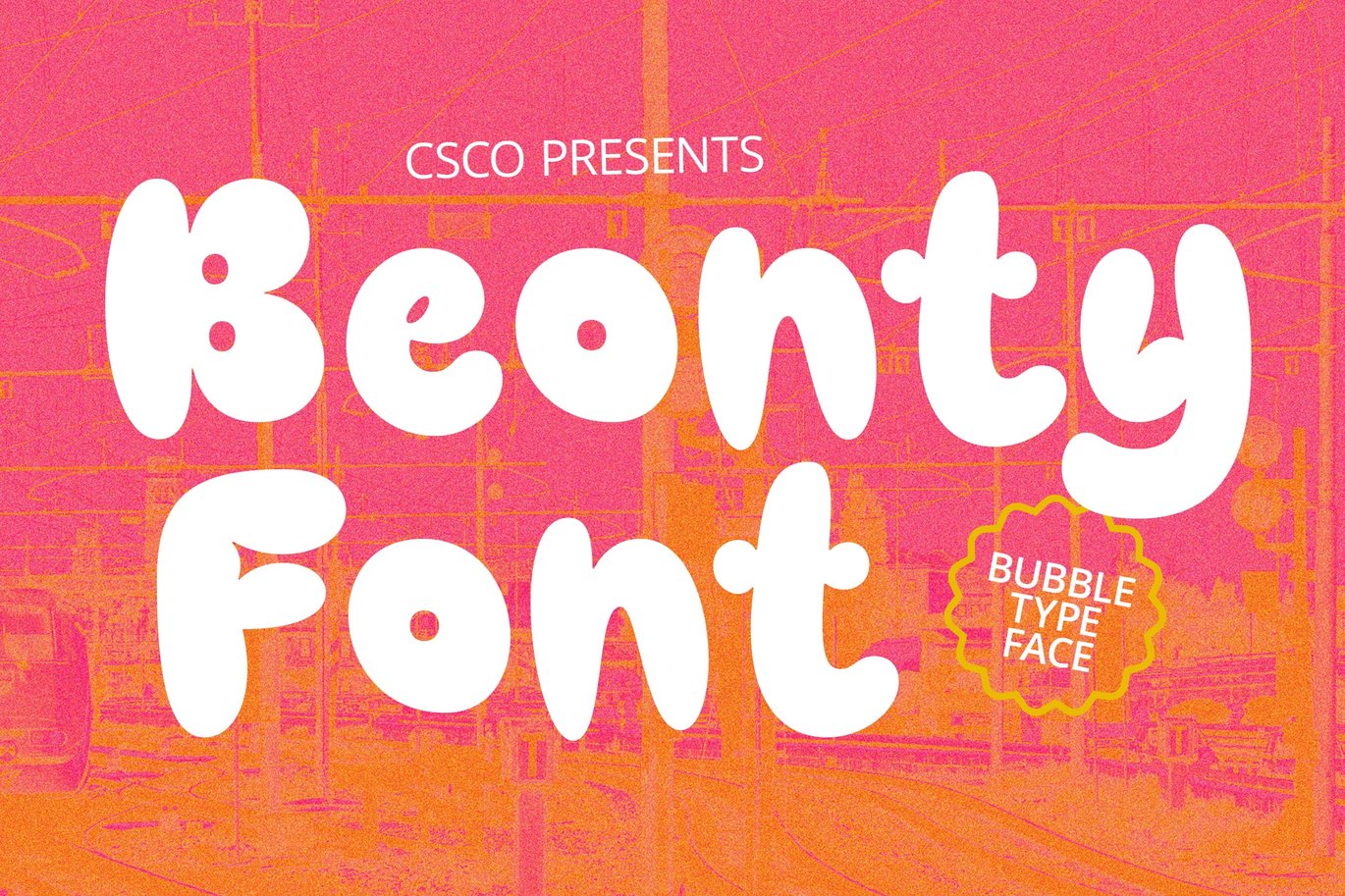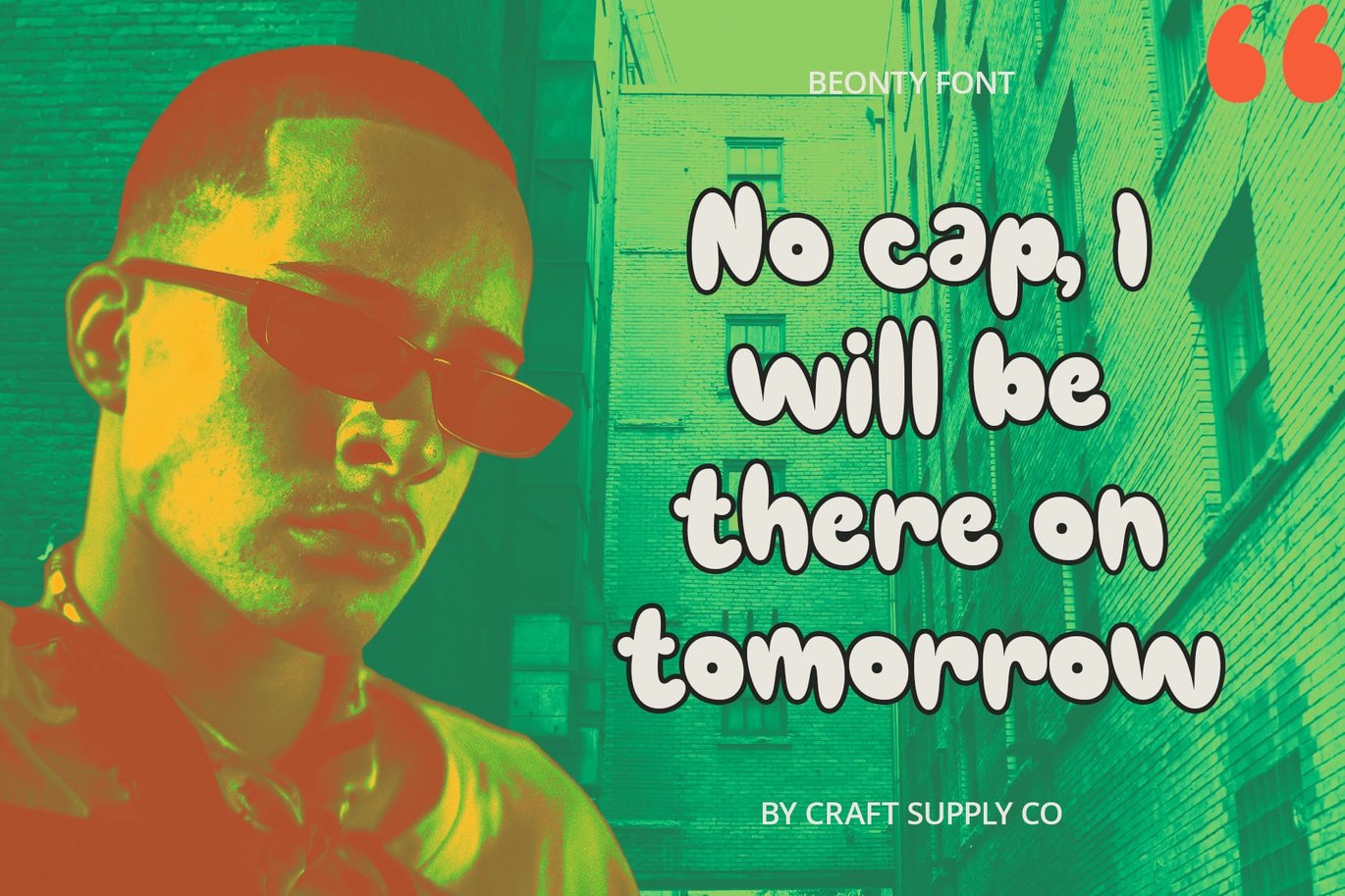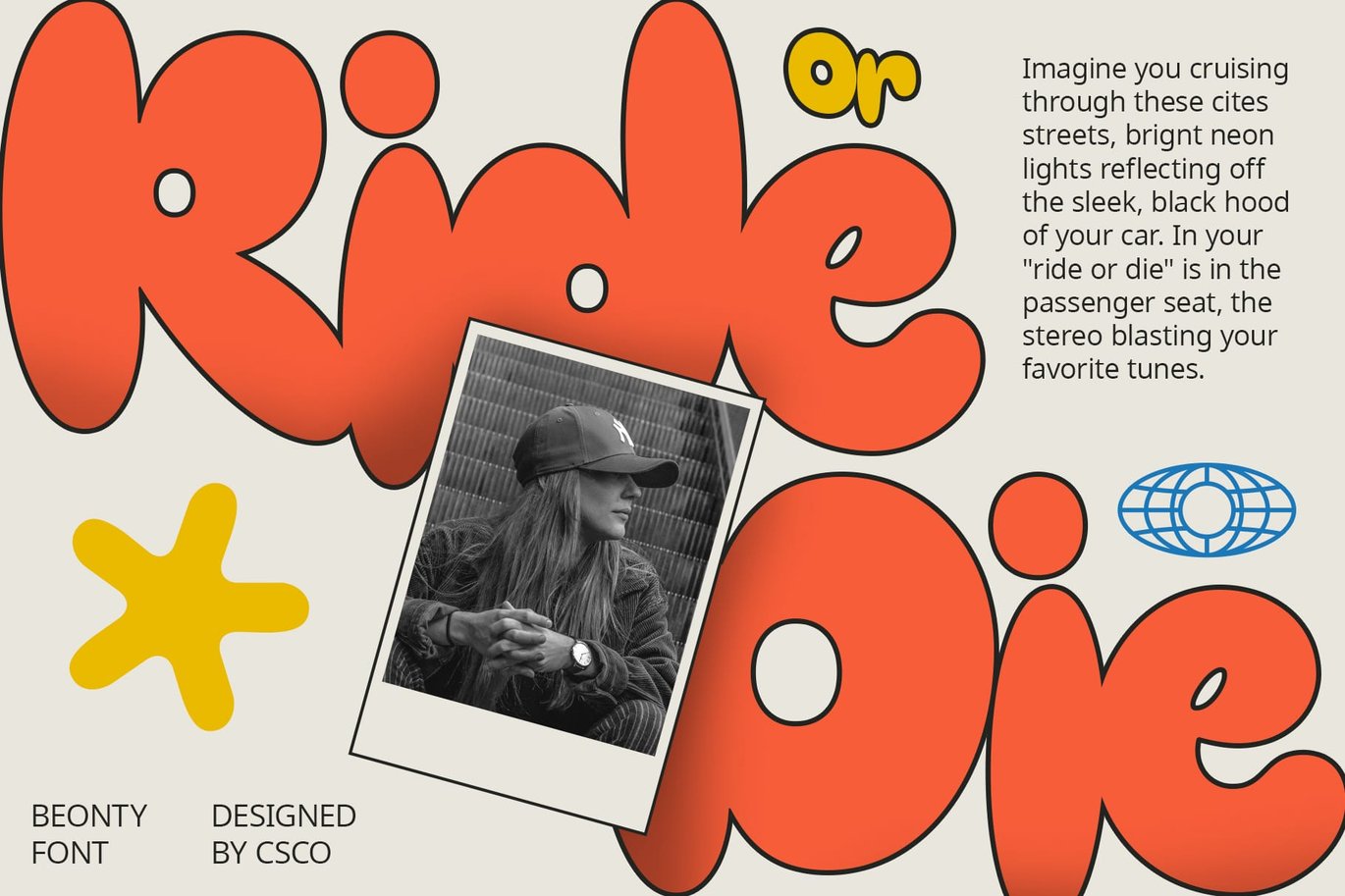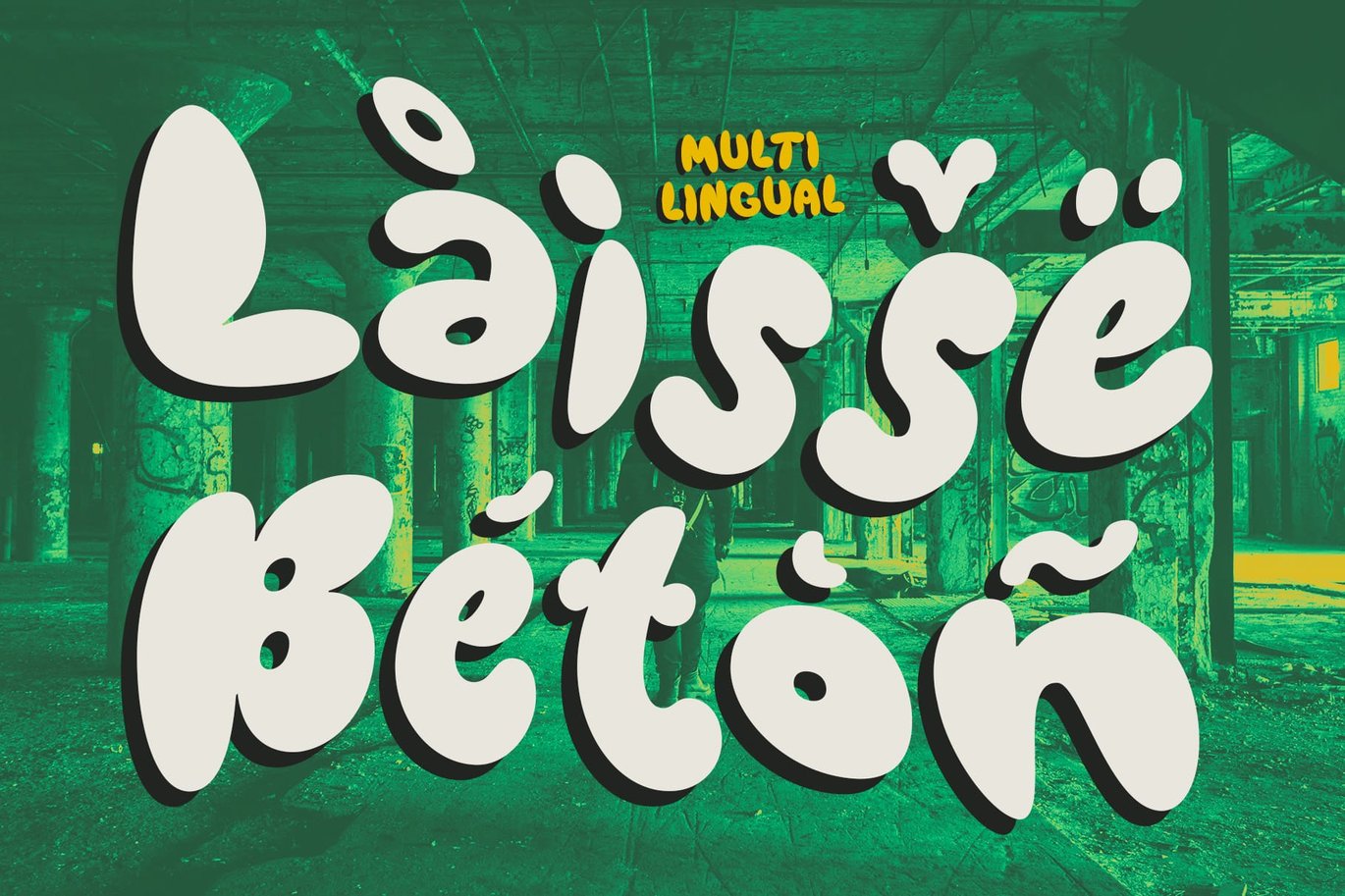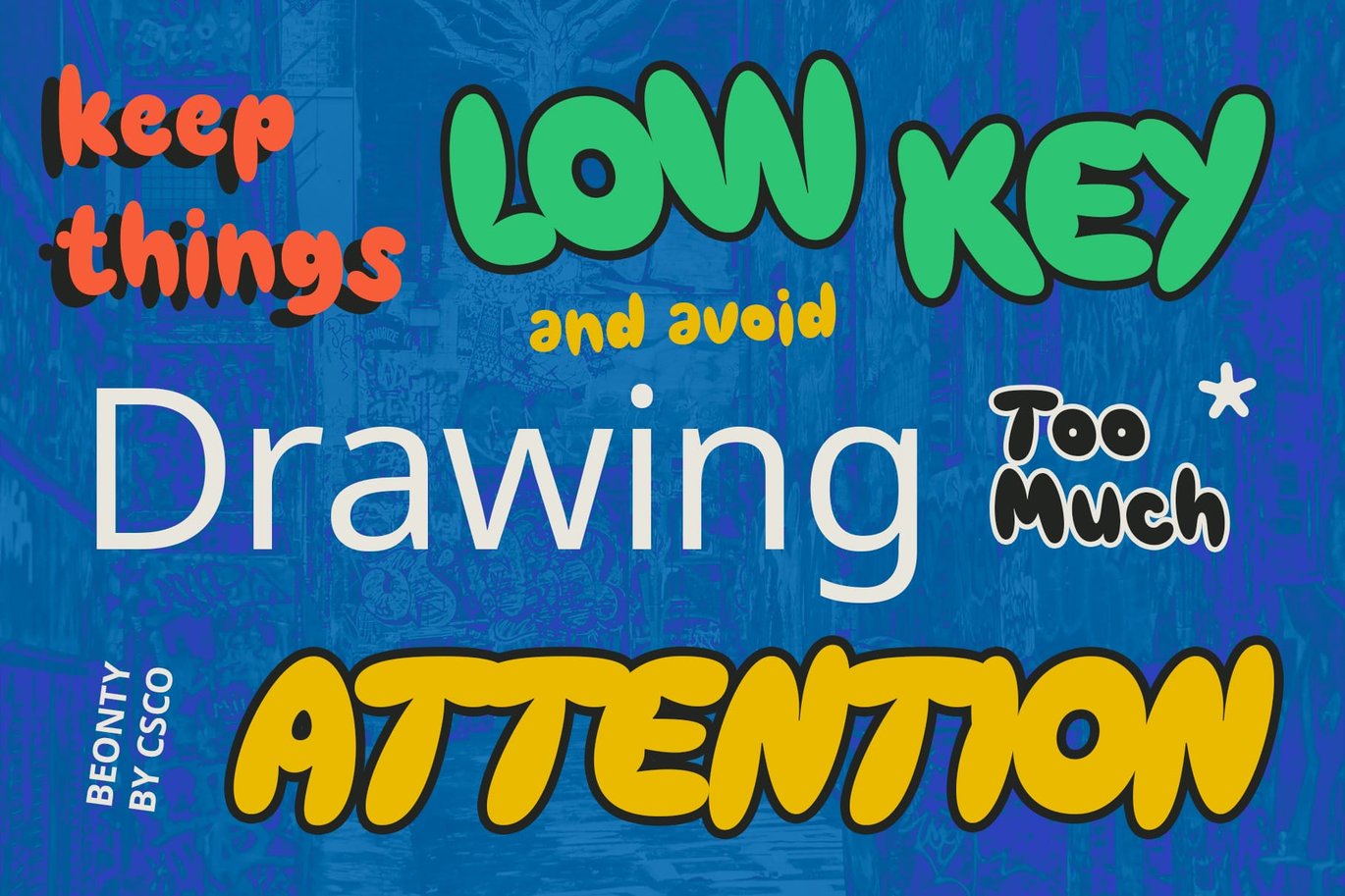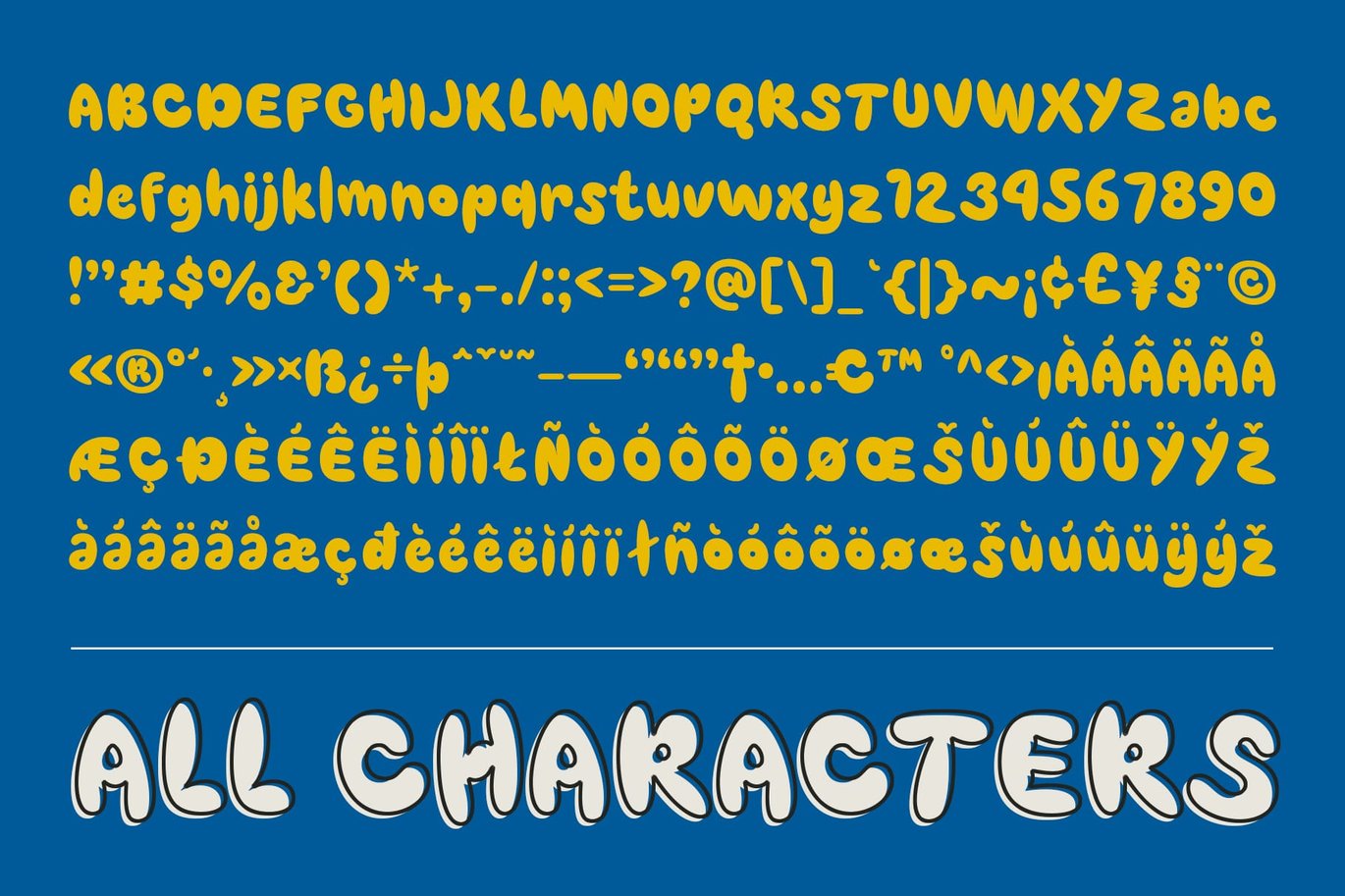
Beonty – Bubble Font
Beonty: Where Funk Meets Fun
Funky Bubble Display
Beonty is a font with bubble shapes and a funky vibe, perfect for unique designs. Its playful and bold style makes it ideal for a variety of creative projects.
Bubble Shapes with Funky Vibe
With its rounded forms and energetic design, Beonty offers a fresh take on display fonts. The bubble shapes and funky elements create a captivating and dynamic look, ideal for posters, branding, and other projects that need a touch of whimsy.
Perfect for Unique Designs
Whether you’re designing a playful advertisement or creating a standout logo, Beonty is sure to make an impression. Its bold style and funky vibe make it perfect for displays that demand attention and convey a sense of fun and creativity.
Versatile and Easy to Use
Despite its distinctive appearance, this font is versatile and easy to use. The font works well in both large and small sizes, making it suitable for a variety of applications, from headlines and banners to body text and more. With its blend of bubble shapes and funky style, Beonty adds a unique and playful touch to any design.